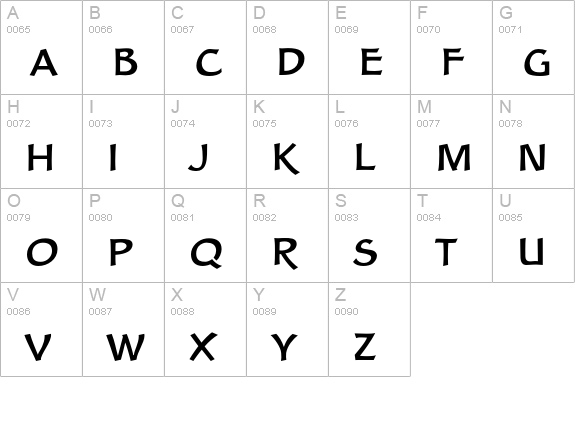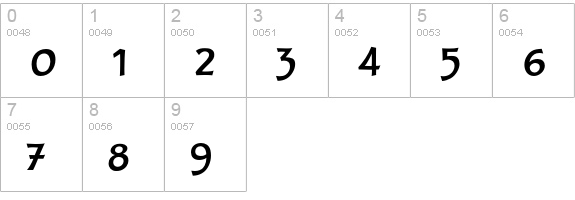
Clair-Medium Font Details
Clair-Medium is a balanced, medium-weight variant in the Clair typeface family \xE2\x80\x94 well suited to sub-headlines, navigation, and balanced editorial work.
Clair-Medium font is a versatile and elegant typeface that exudes a sense of sophistication and modernity. With its clean lines and balanced proportions, Clair-Medium is perfect for a wide range of design projects, from branding to editorial design. This font strikes the perfect balance between professionalism and creativity, making it suitable for both corporate and creative applications. The best part about Clair-Medium font is that it is available for free download at FontsMarket.com. This means that you can easily access this high-quality font without any cost, making it a valuable addition to your font collection. Whether you are a designer looking for a reliable and stylish font for your next project or a business owner in need of a polished and contemporary typeface for your branding materials, Clair-Medium font has got you covered. Download Clair-Medium font today from FontsMarket.com and elevate your designs with this stunning and versatile typeface.